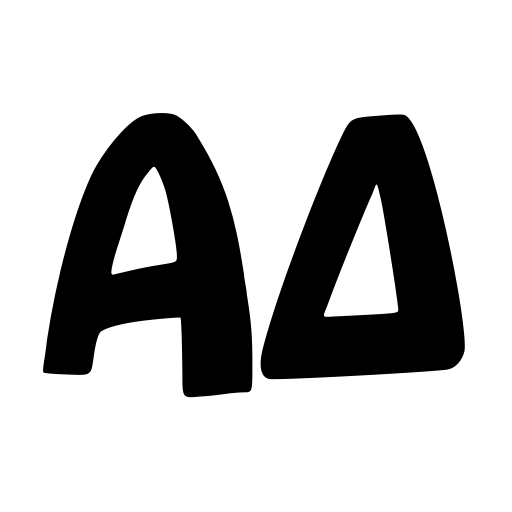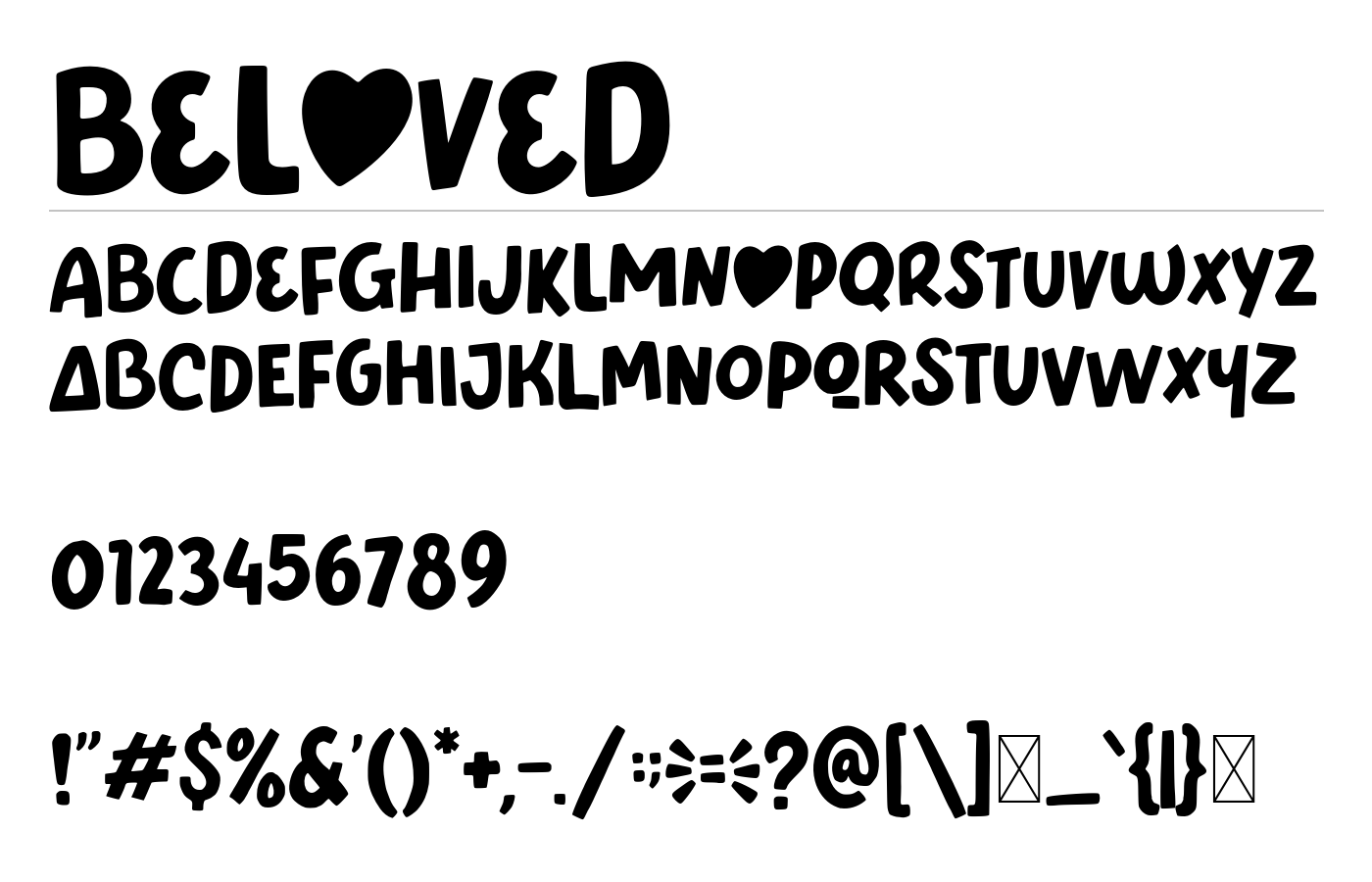
Beloved is a playful, bold sans serif font with a hand-drawn feel, featuring thick, rounded letterforms and charming quirky elements like a heart-shaped "O" and uneven strokes. Its lively and friendly style makes it perfect for fun branding, children’s books, posters, and any design that wants to convey warmth and personality in a casual, approachable way.
BELOVED Font
| Designer | Zamroni Hamzah |